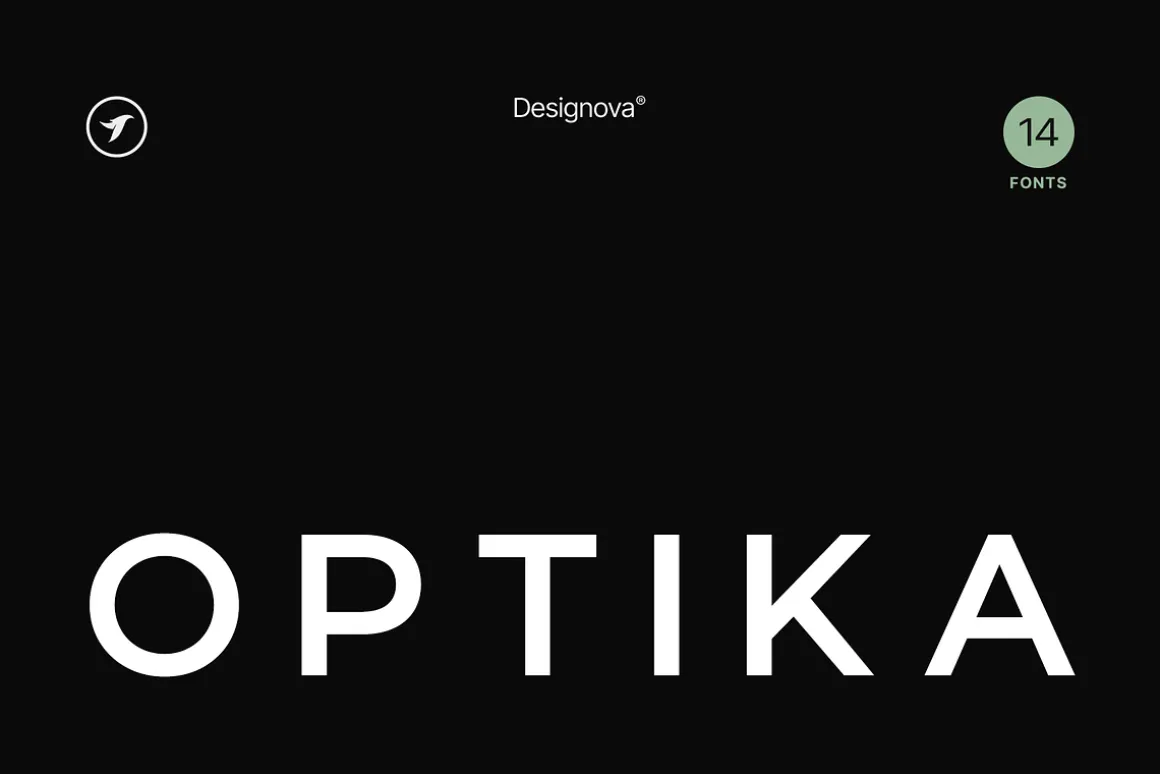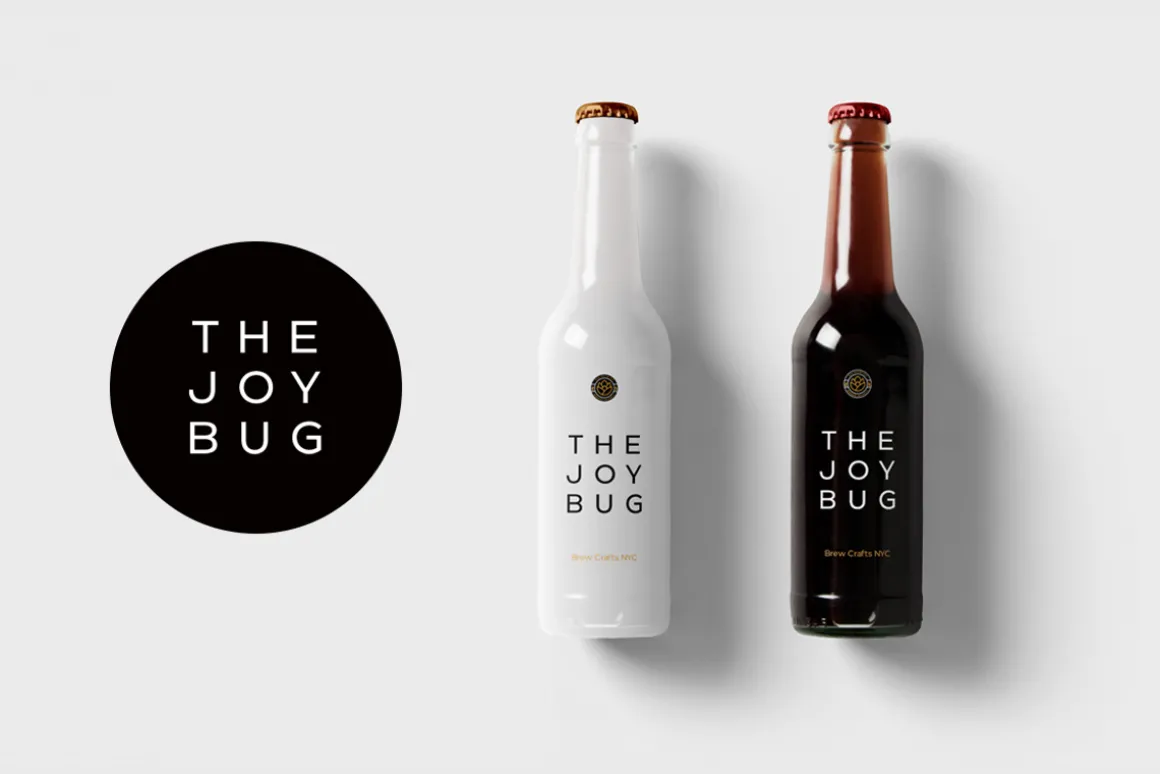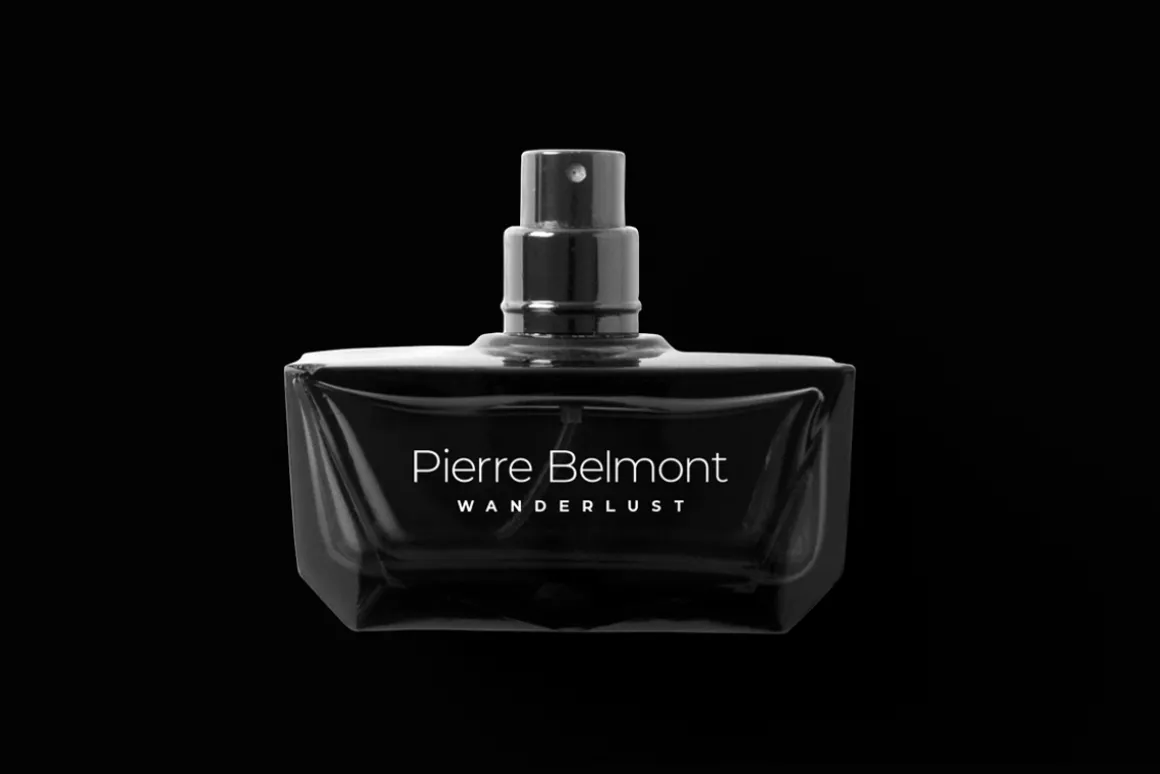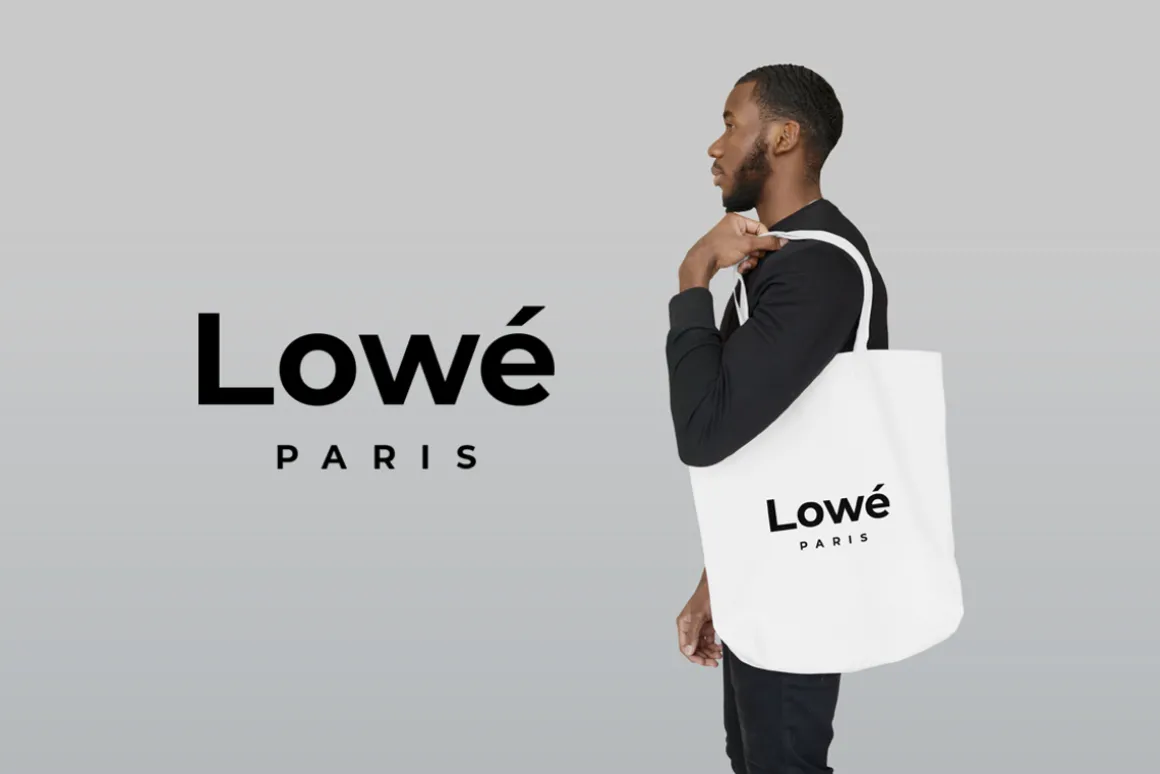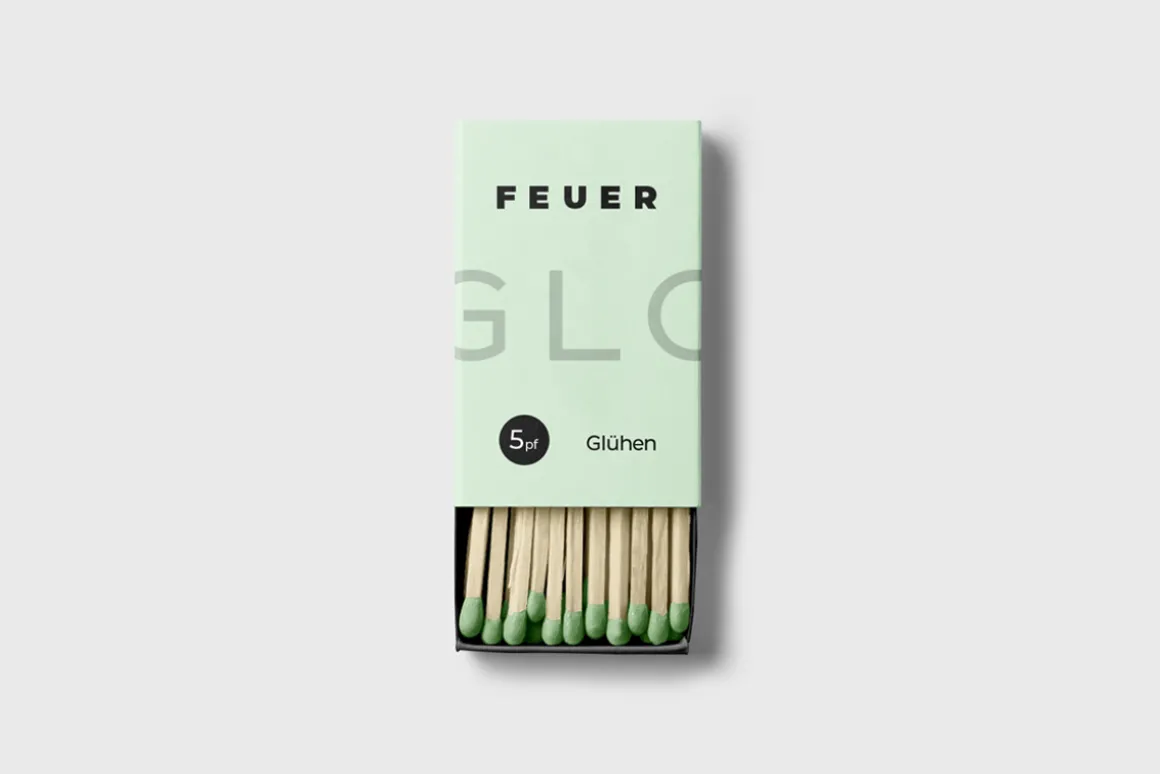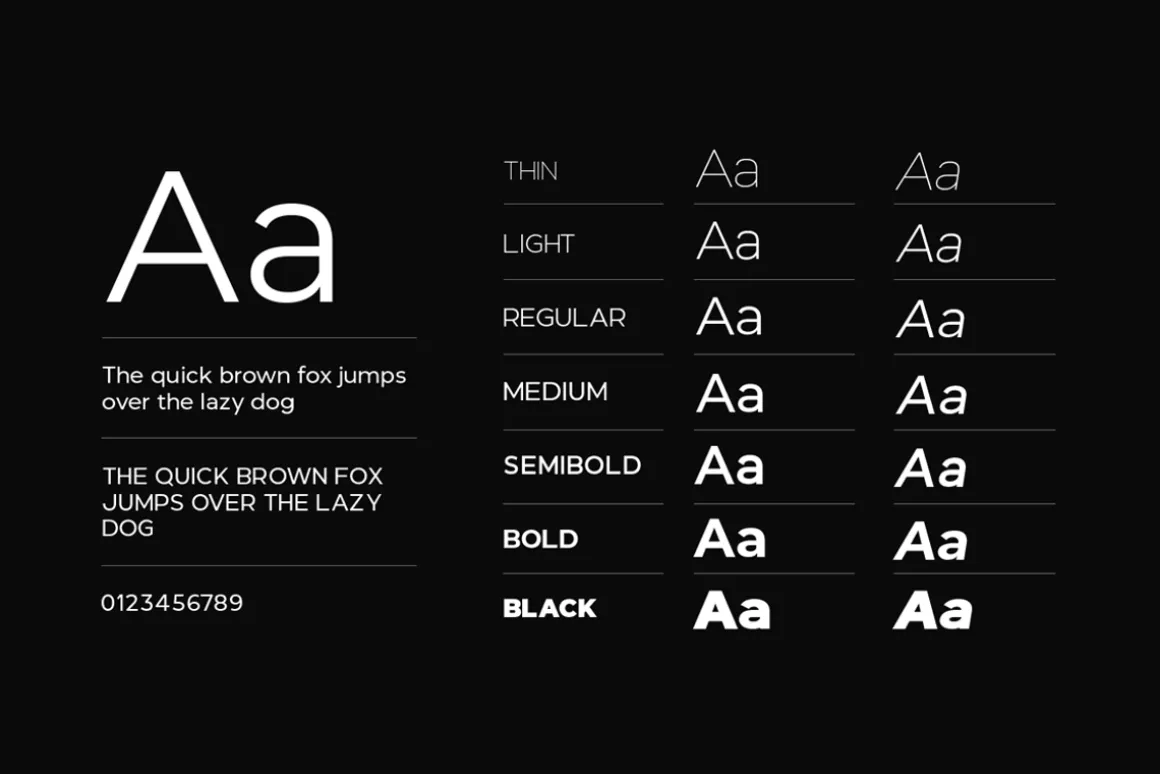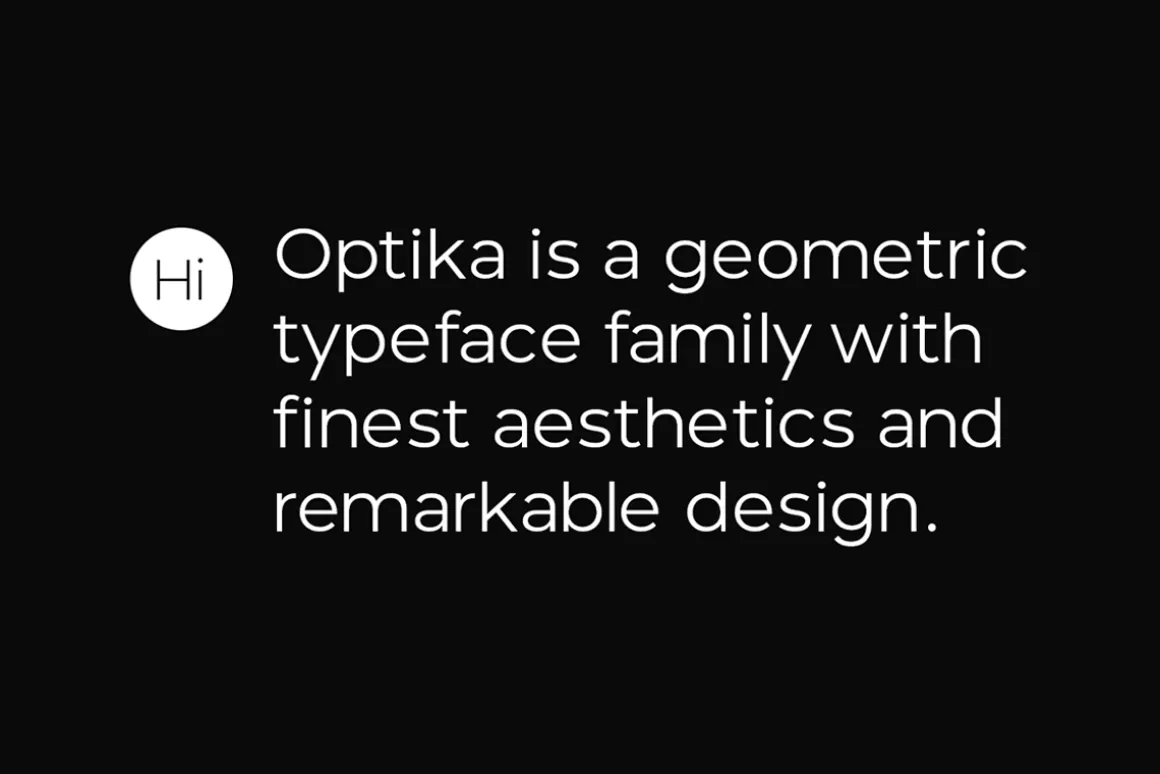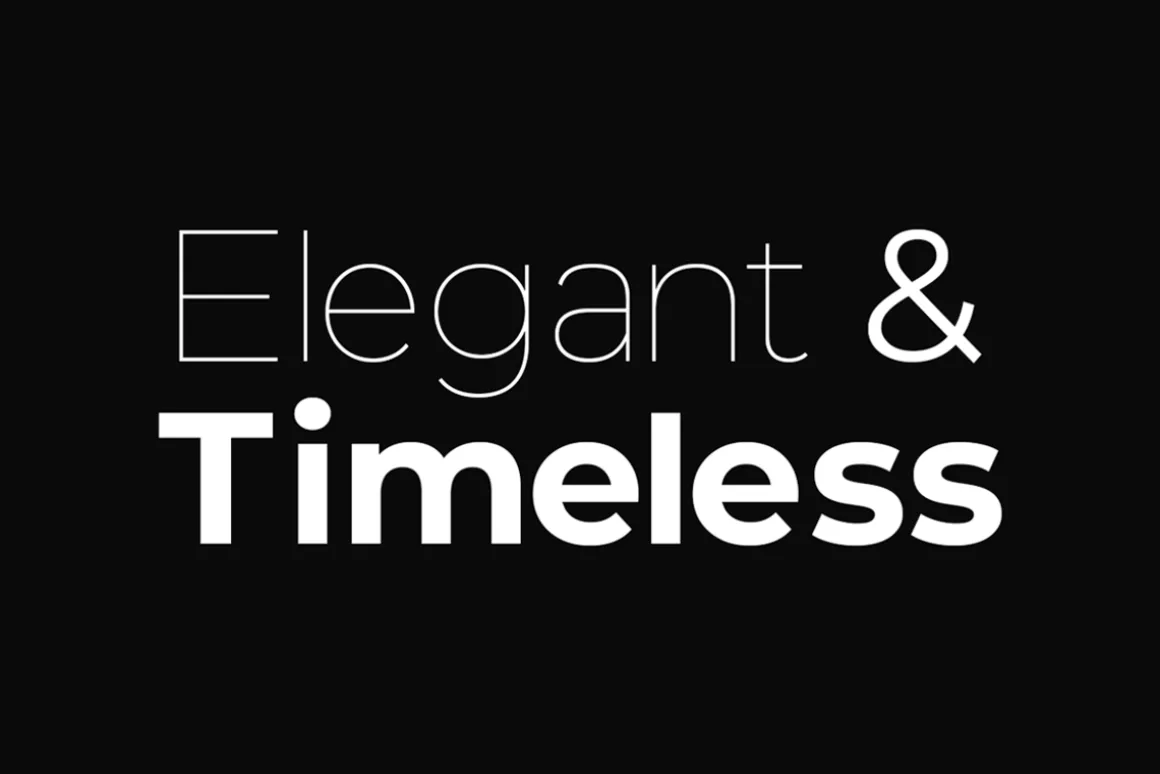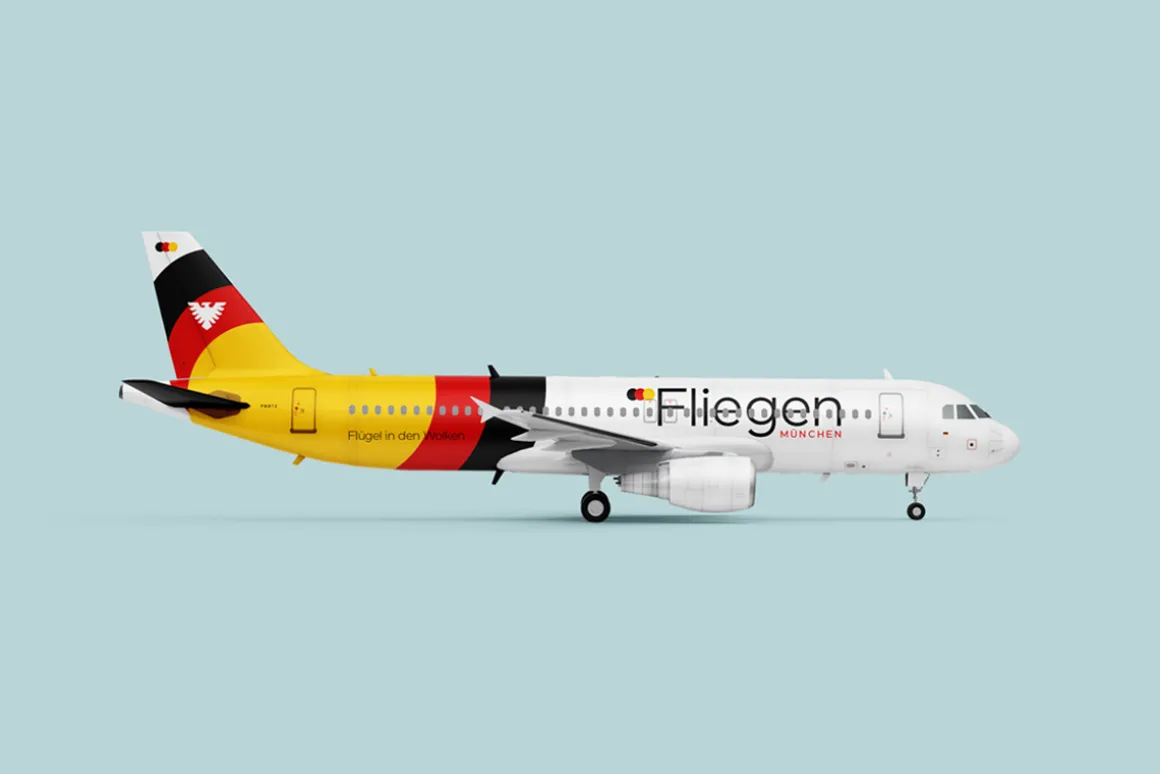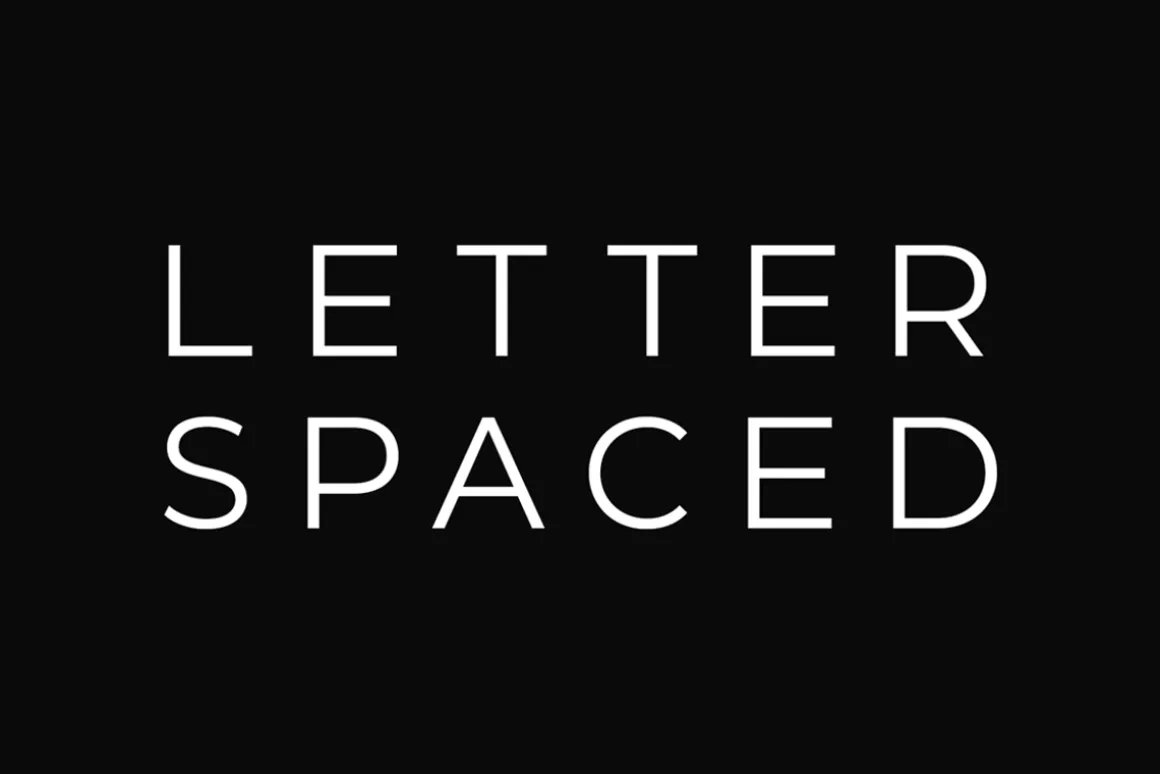
ABOUT THE TYPEFACE:
The design concept of OPTIKA is inspired by our all-time best-selling typeface NORD -**
Optika is a minimal and modern Sans-Serif typeface that makes your designs stand out from the crowd. Optika is an all-purpose typeface, a perfect choice for creating logotypes, branding, headlines, corporate identities, and marketing materials for web, digital & print alike.
The typeface will be a great option for branding, logo/logotype design projects, marketing graphics, banners, posters, signage, corporate identities and editorial design. Adding extra letter spacing will make this font the perfect choice for minimal headlines and logotypes, as shown in the promo designs attached.
FEATURES:
Optika font family includes a collection of 14 fonts in total, with seven upright weights and Italic equivalents of all seven weights as follows:
- Thin
- Thin Italic
- Light
- Light Italic
- Regular
- Italic
- Medium
- Medium Italic
- SemiBold
- SemiBold Italic
- Bold
- Bold Italic
- Black
- Black Italic
Handcrafted and designed with powerful OpenType features in mind, each weight includes extended language support with Western European, Central European, and South Eastern European sets. A total of 394 glyphs are available.